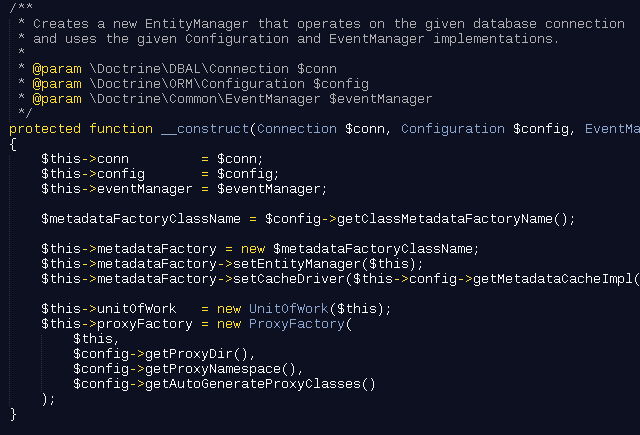
Liberation Mono is styled closer to Liberation Sans than Monotype's Courier New, though its metrics match with Courier New. The Liberation fonts are intended as free, open-source replacements of the aforementioned closed source fonts.
Con Difference between "0" and "O" isn't clear
It can be difficult to tell the difference between the number "0" and the letter "O". However, the Fedora Project has a slightly altered version of Liberation Mono that fixes this with a dotted zero.
Liberation Mono